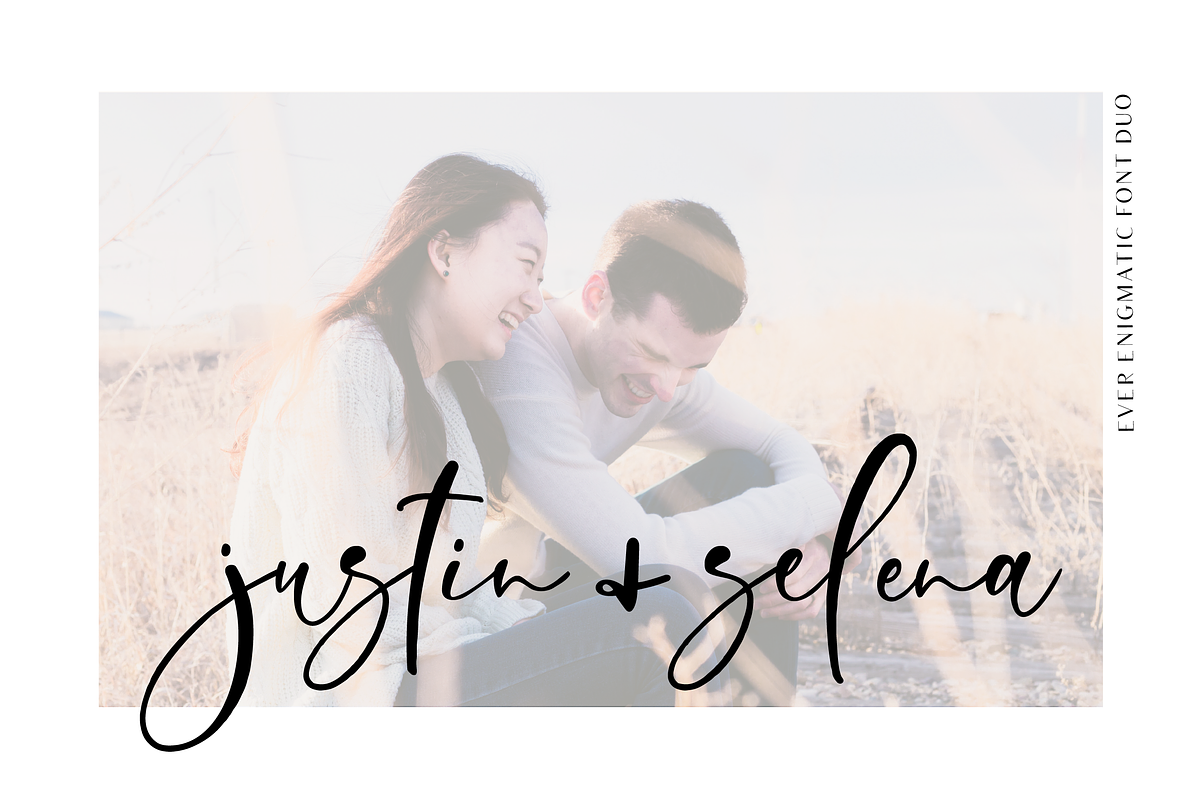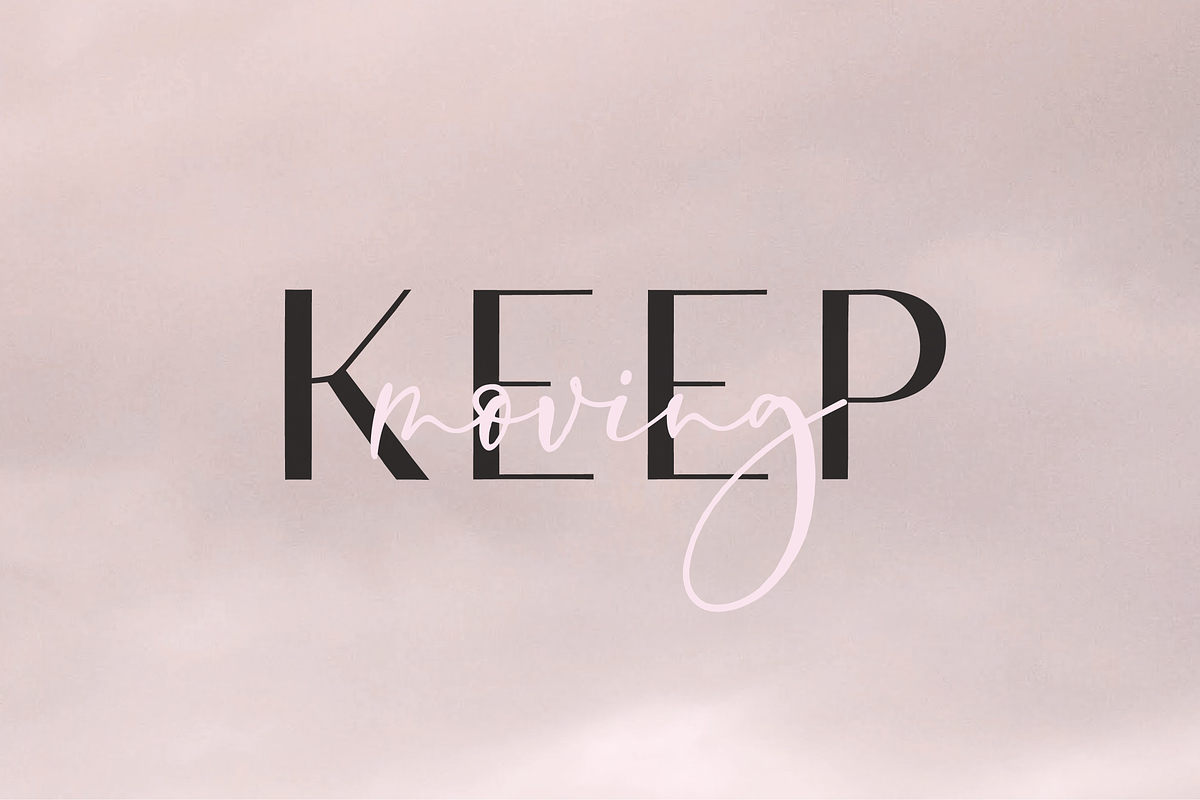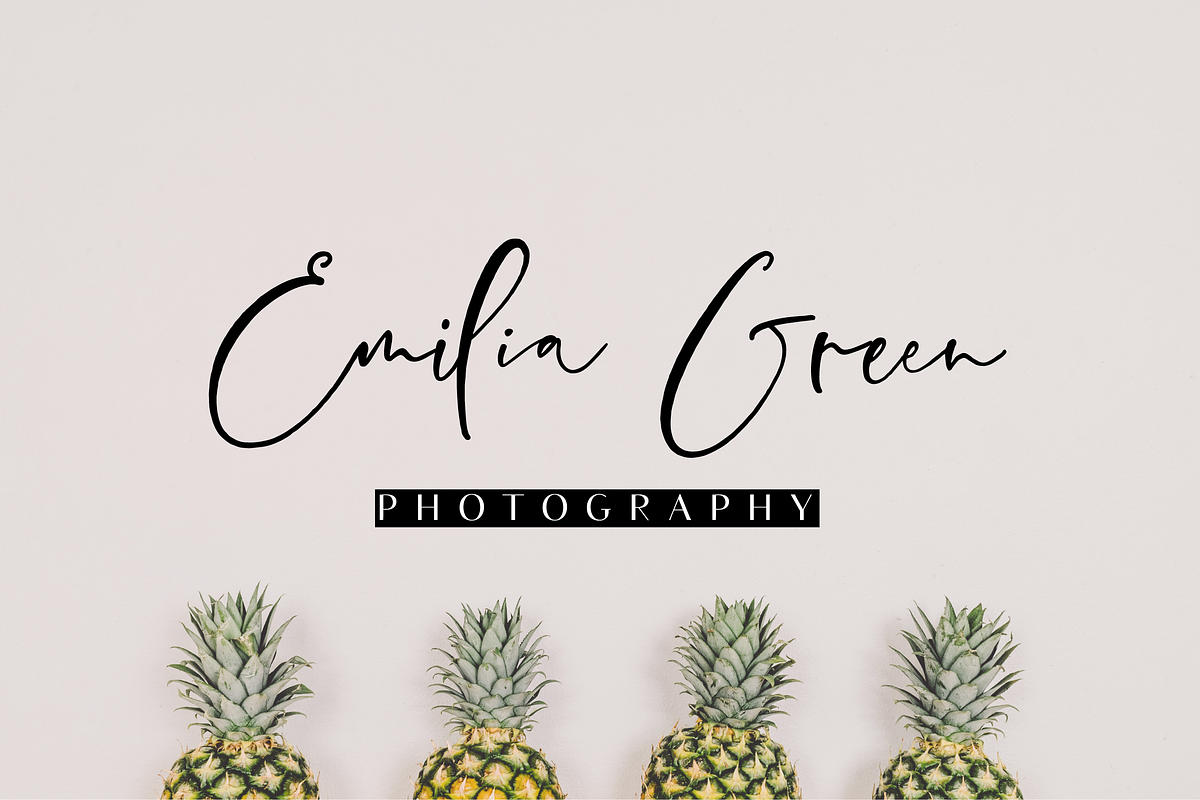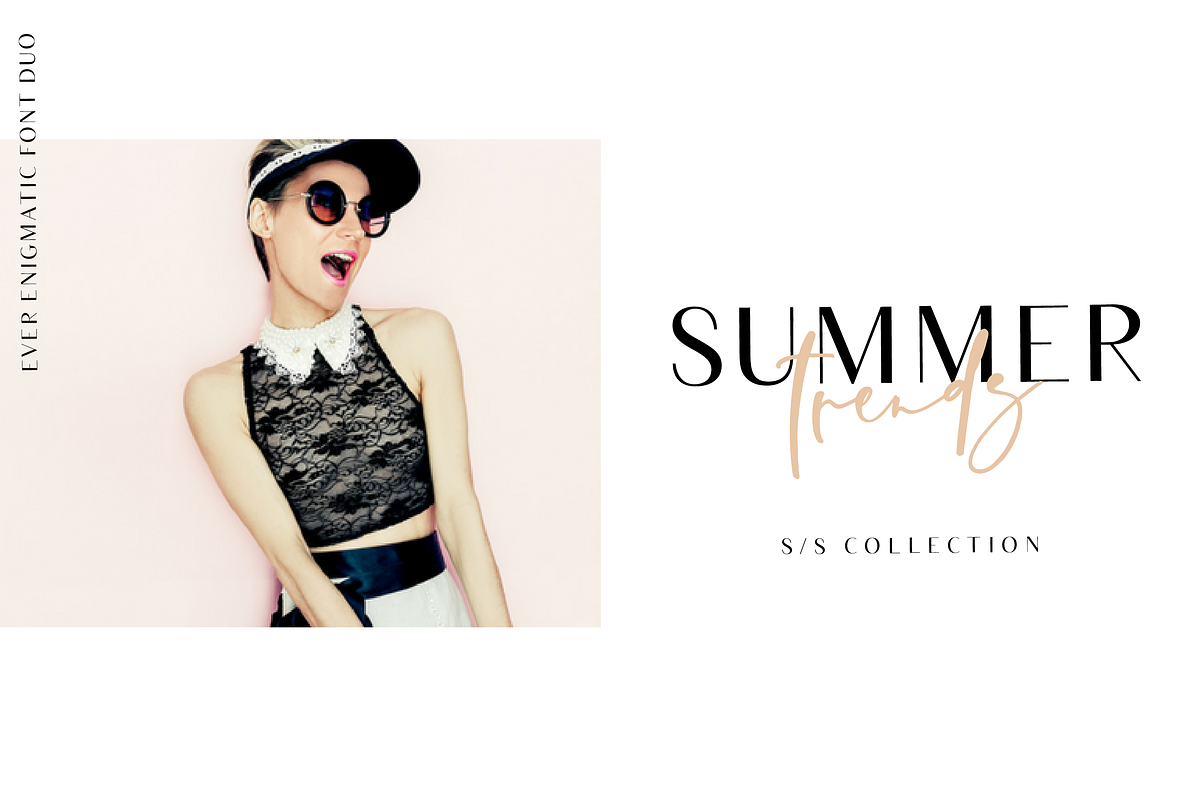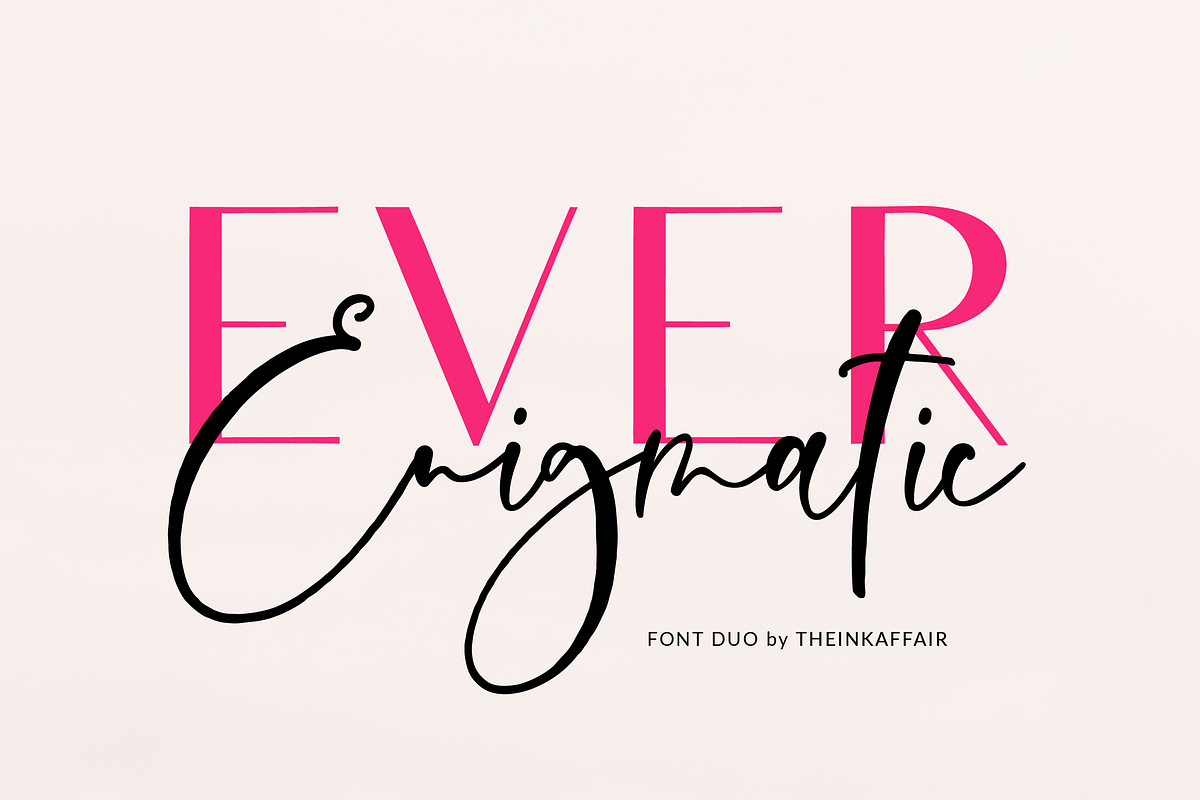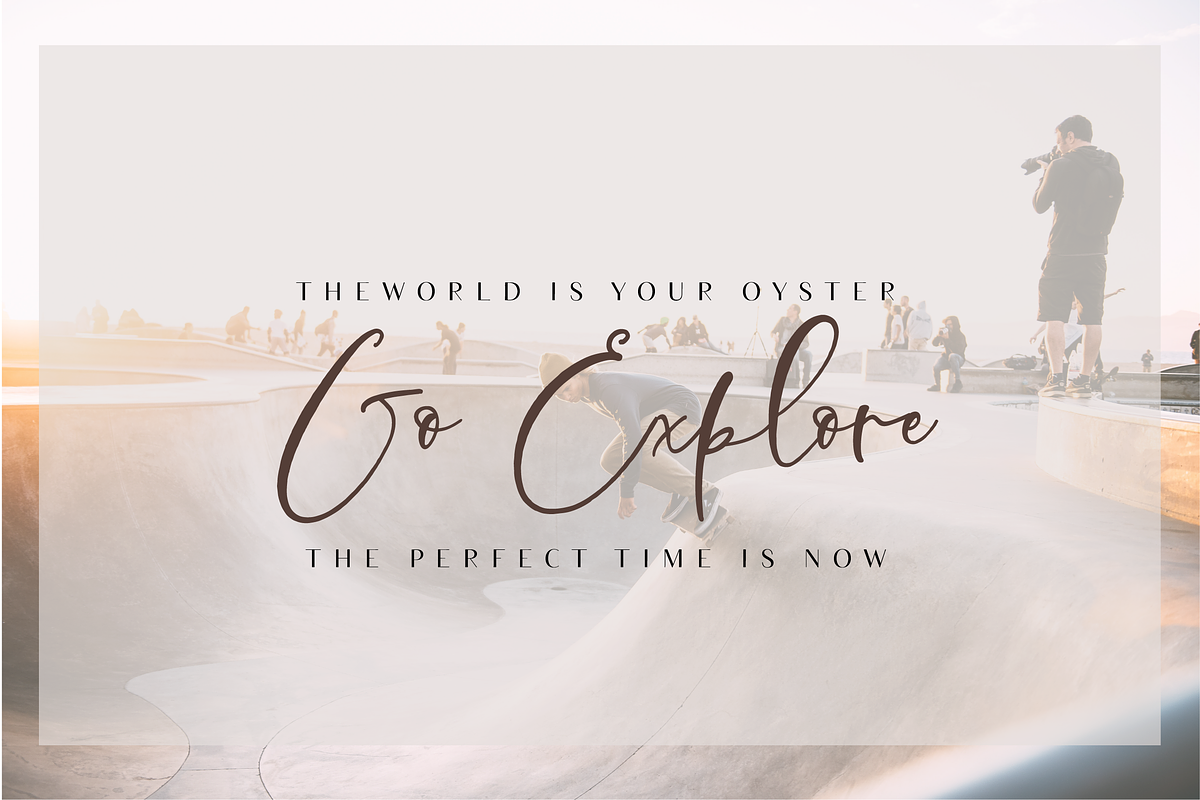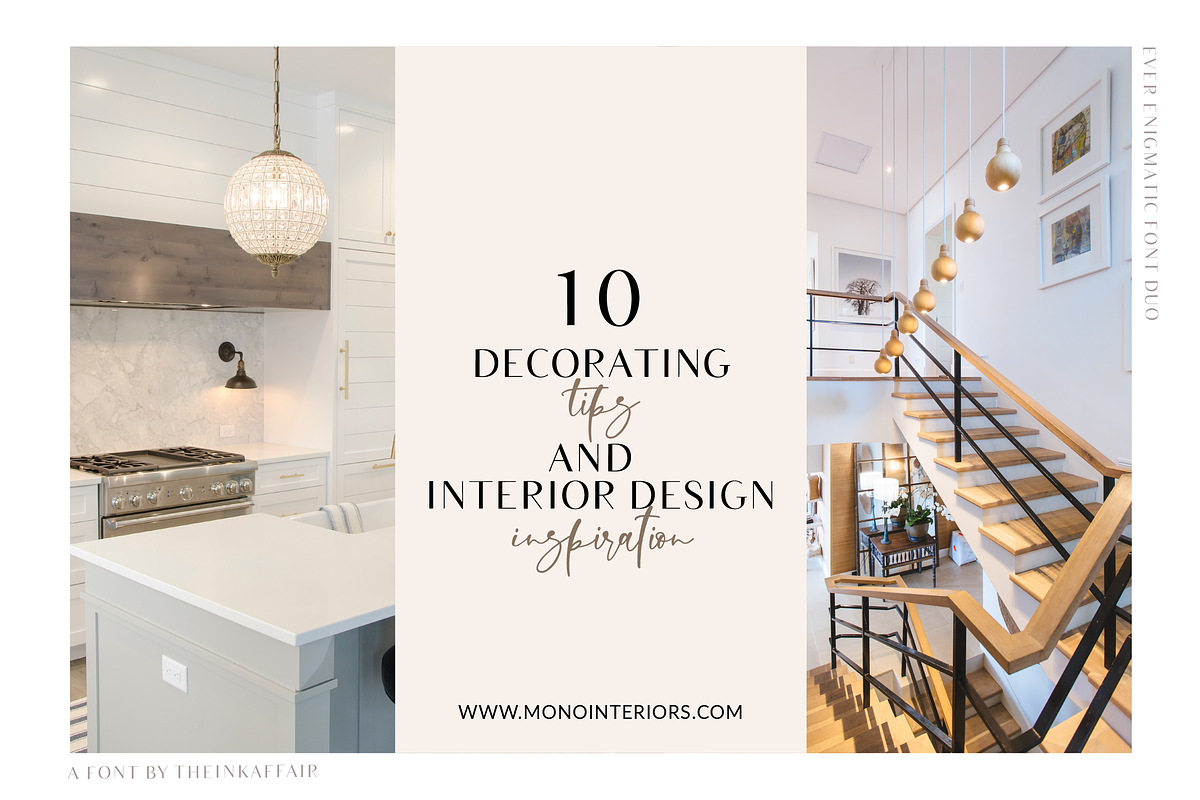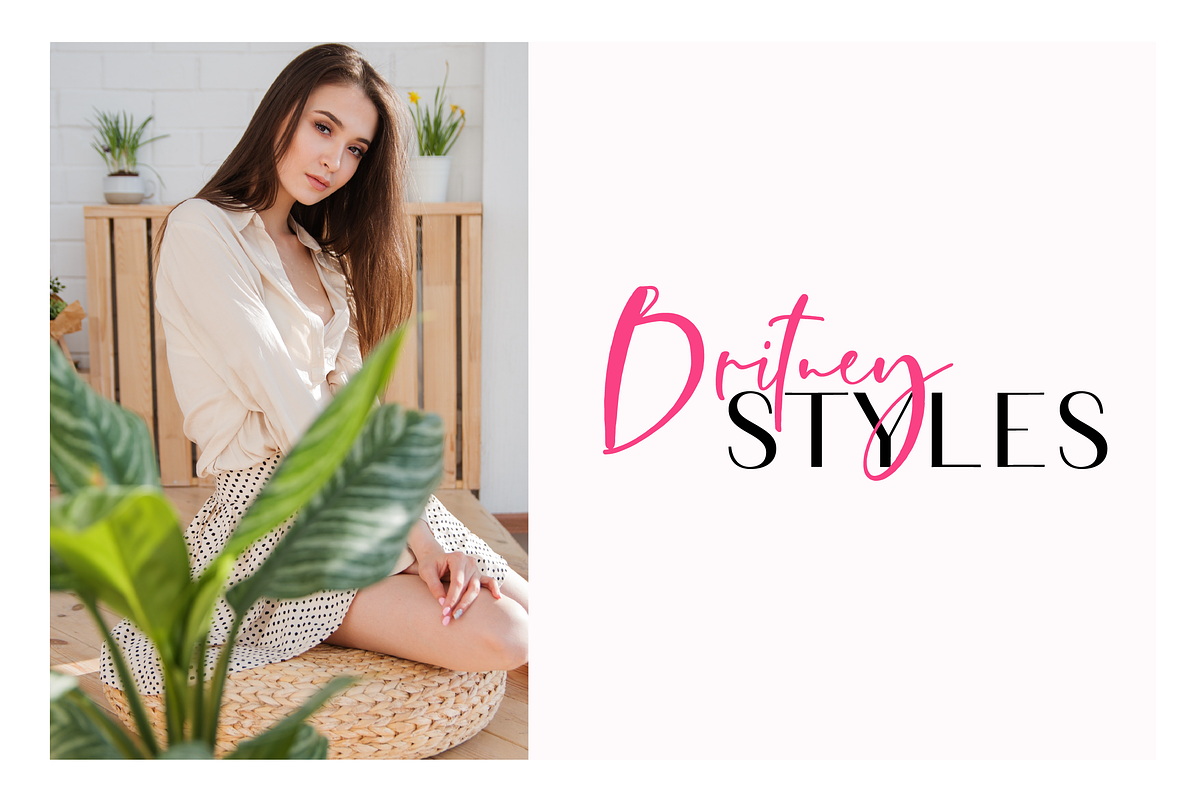
Ever Enigmatic Font Duo
Introducing Ever Enigmatic, a modern font duo that includes a sans serif and a script that go together like tacos and tuesdays!
This classy yet fun font duo is perfect for all your design needs, from invites to branding to social media, advertisements and so much more! The Ever Enigmatic script font also contains alternate lowercase alphabets that are also available to you as a separate font.